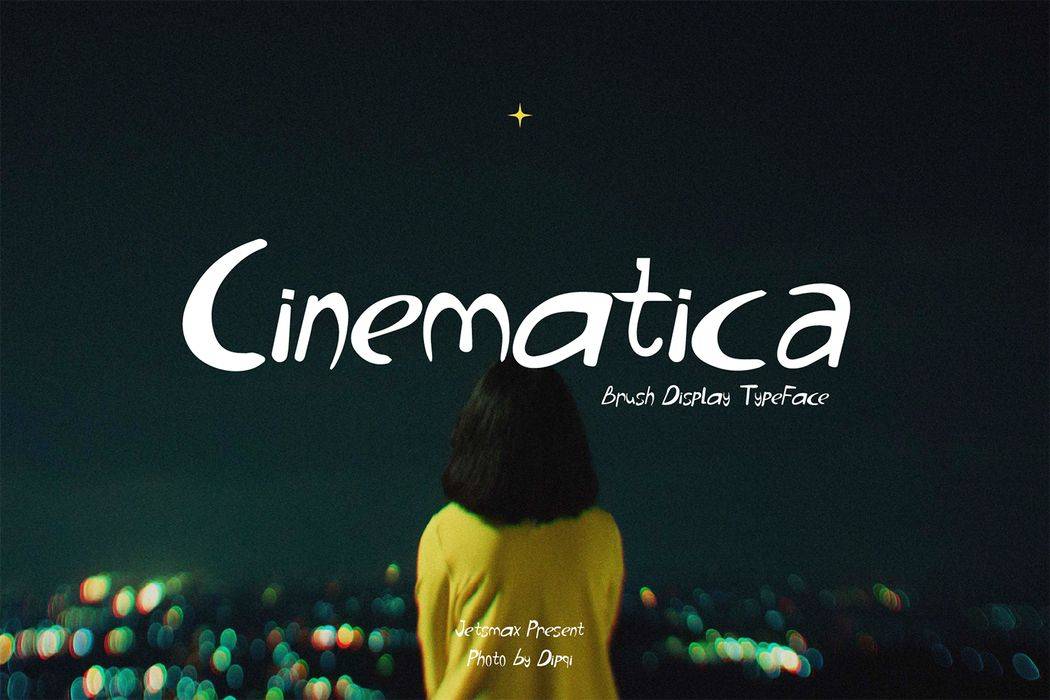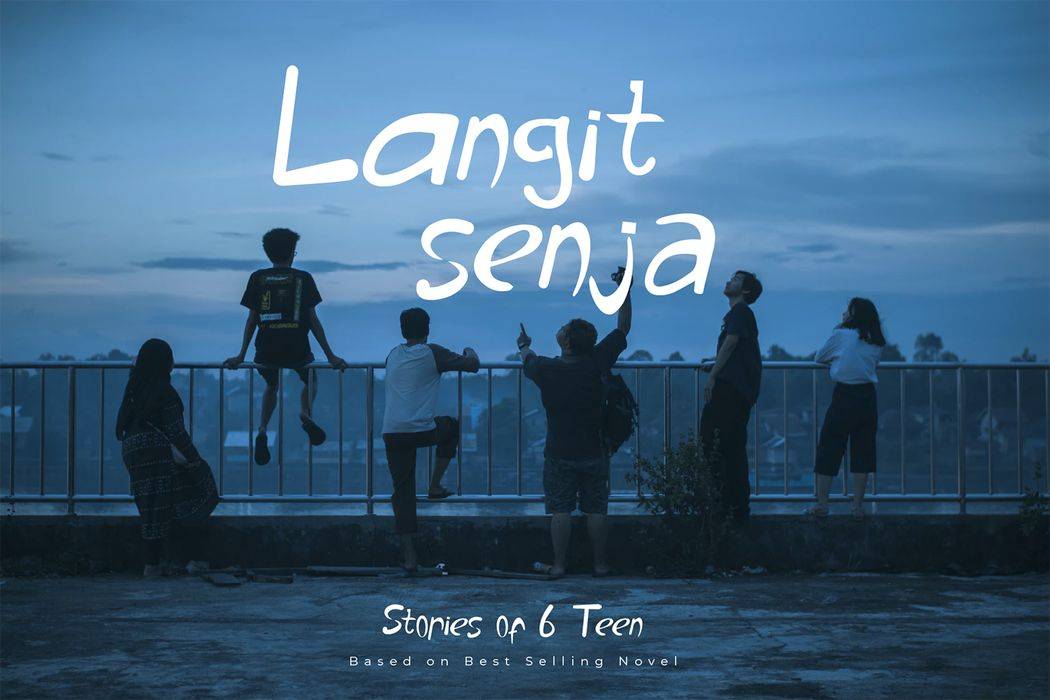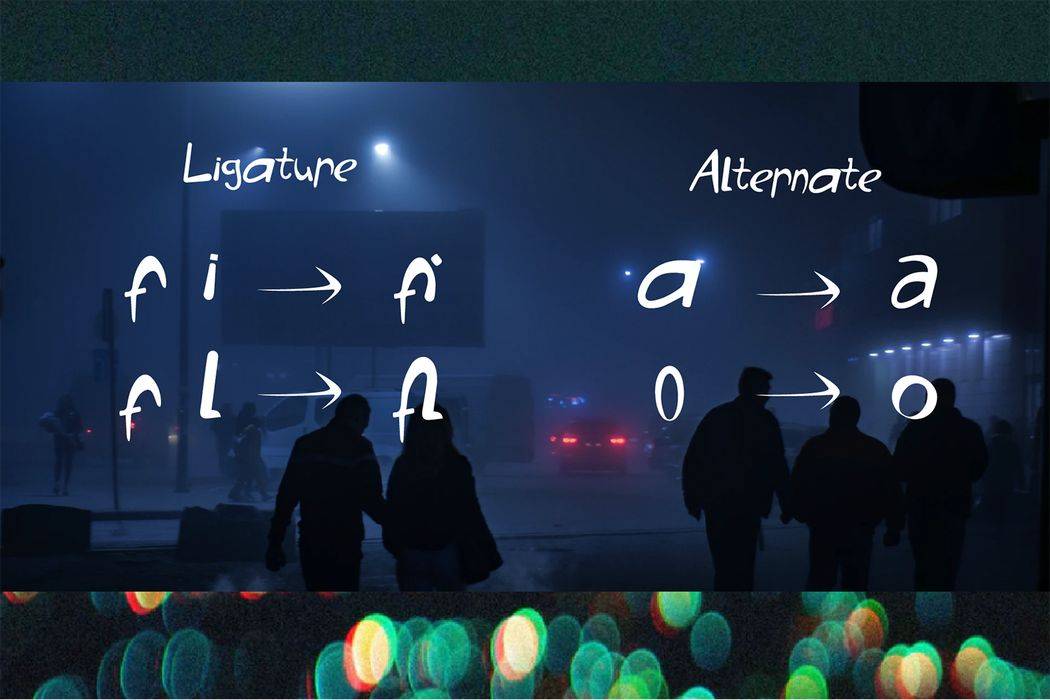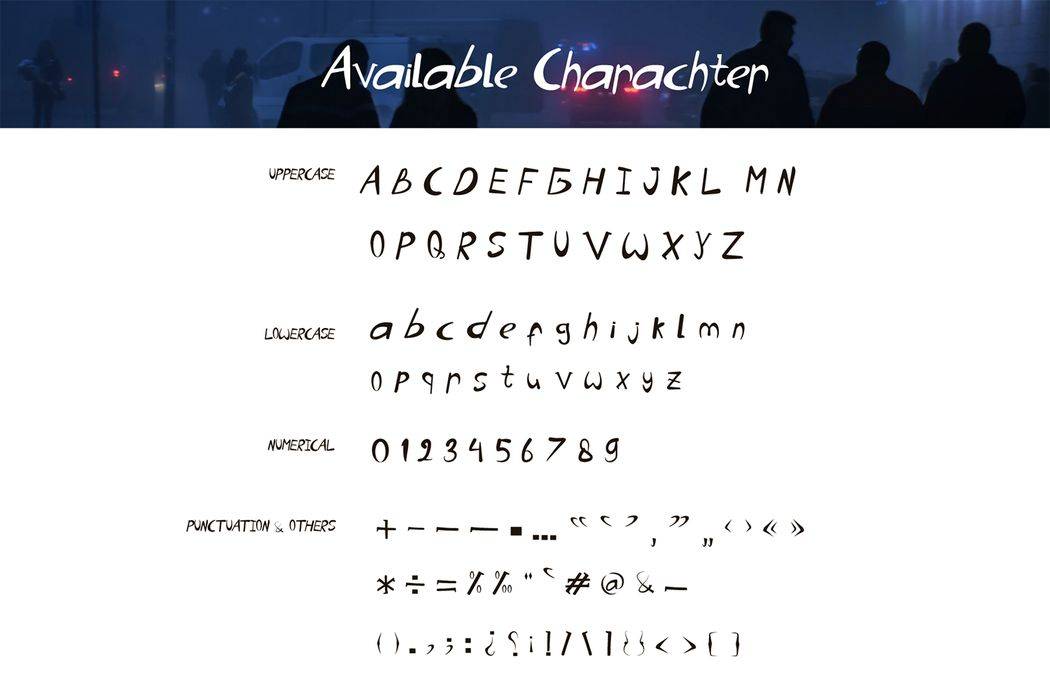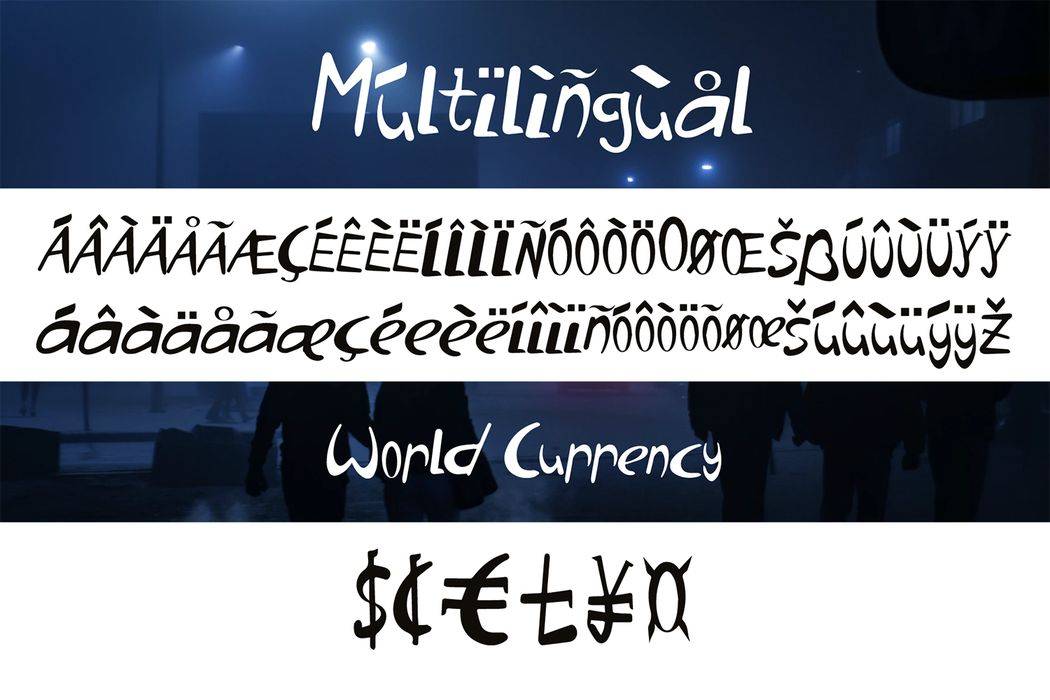
Cinematica is a quirky, hand-drawn sans serif font with playful curves and a casual, uneven stroke that gives it a lively and friendly personality. Its irregular letterforms and varied stroke weights make it ideal for creative projects, branding, and informal headlines where a unique, approachable vibe is desired. This font works well in designs needing a personal, artistic touch, such as posters, social media graphics, and children’s content.
Cinematica Font
About Cinematica Font
| Font family | Cinematica Font |
| Designer | Khairil Anwar |